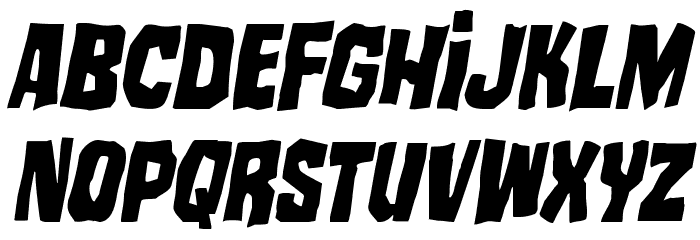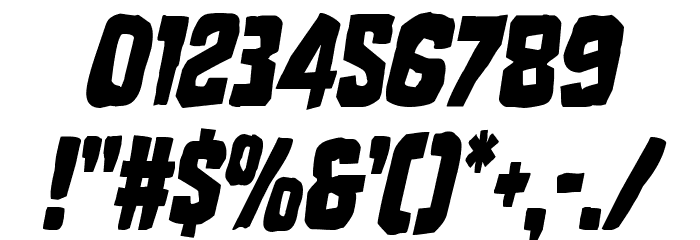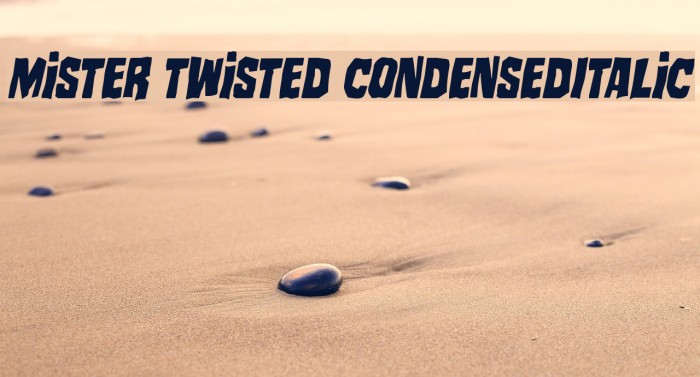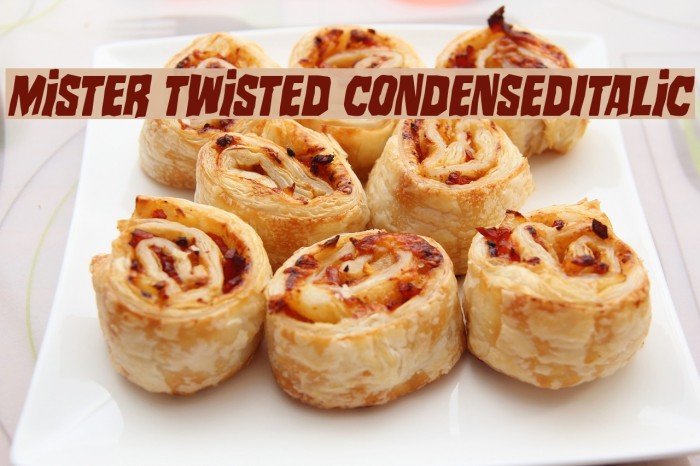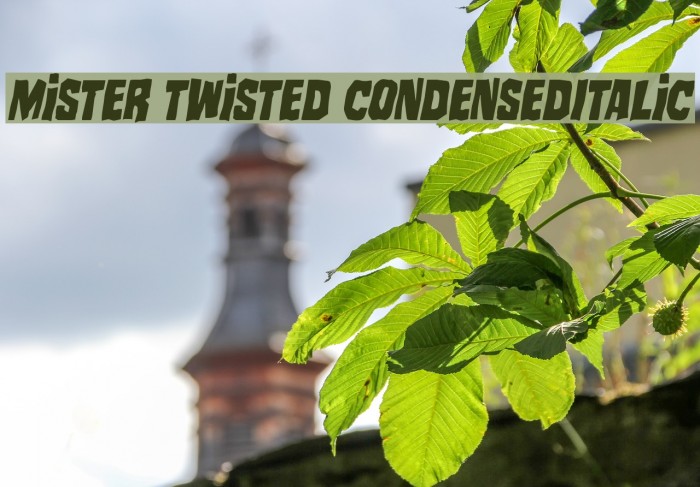
Mister Twisted CondensedItalic Font
This font features a bold, condensed style with a distinct italic slant, giving it a dynamic and energetic appearance. The characters are robust and slightly distorted, adding a playful and unconventional twist to the overall look. The uppercase and lowercase letters maintain a consistent style, with sharp angles and a slightly rough texture that enhances its unique personality. The numerals and special characters follow the same design principles, ensuring uniformity across all glyphs. This font is ideal for projects that require a bold statement and a touch of creativity.
A bold, condensed, and italic font with a dynamic and playful style.
- Proposed Projects: Perfect for posters, logos, branding, and any design needing a bold, creative touch.